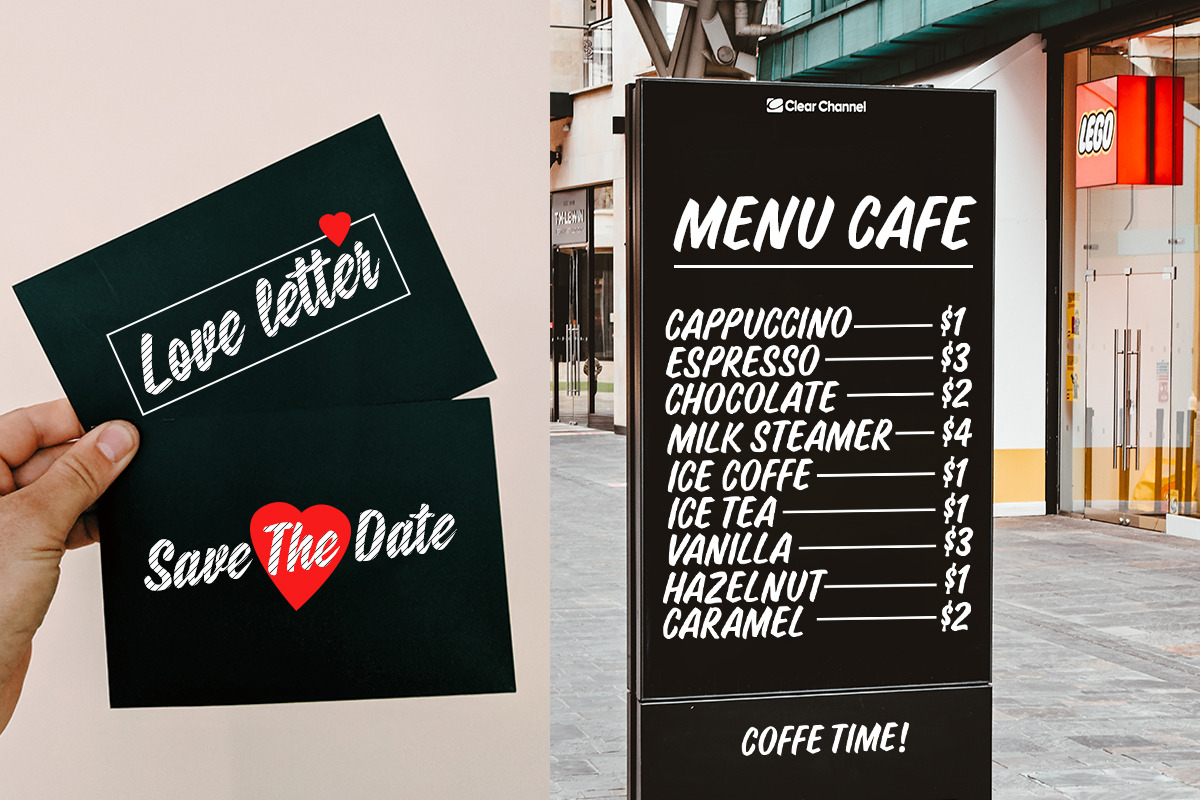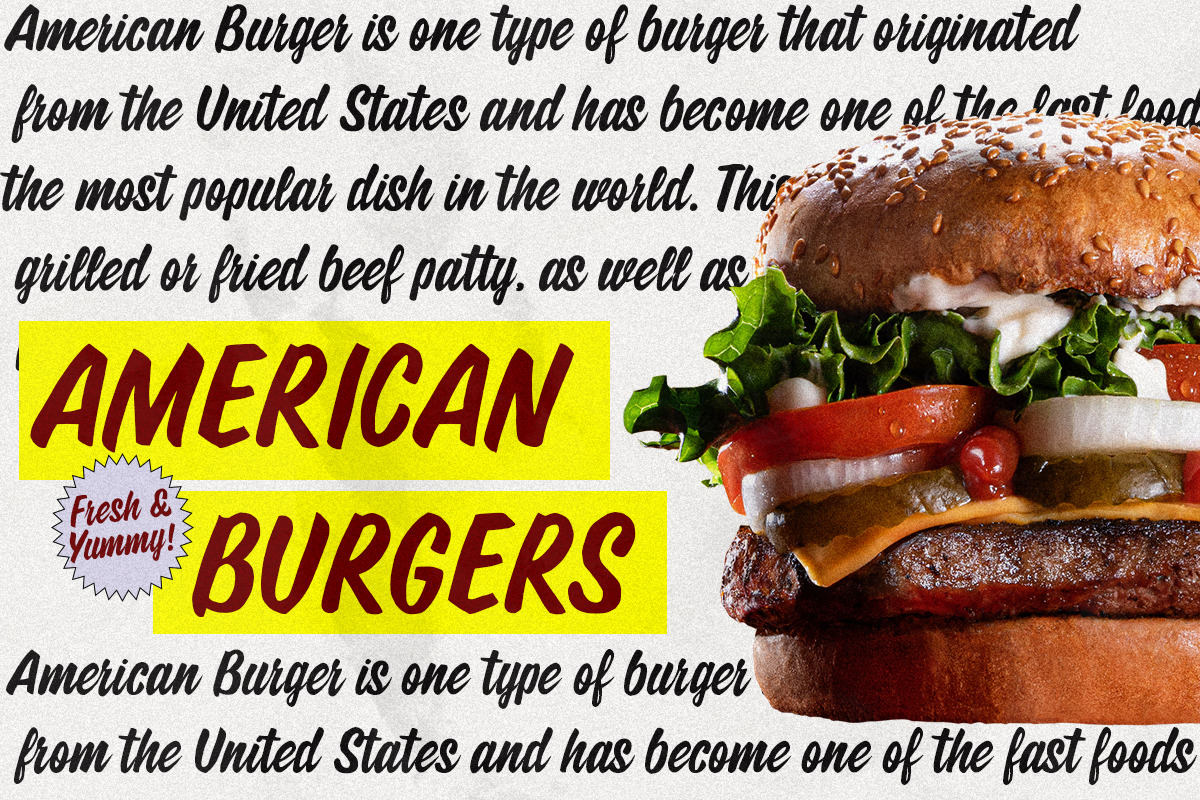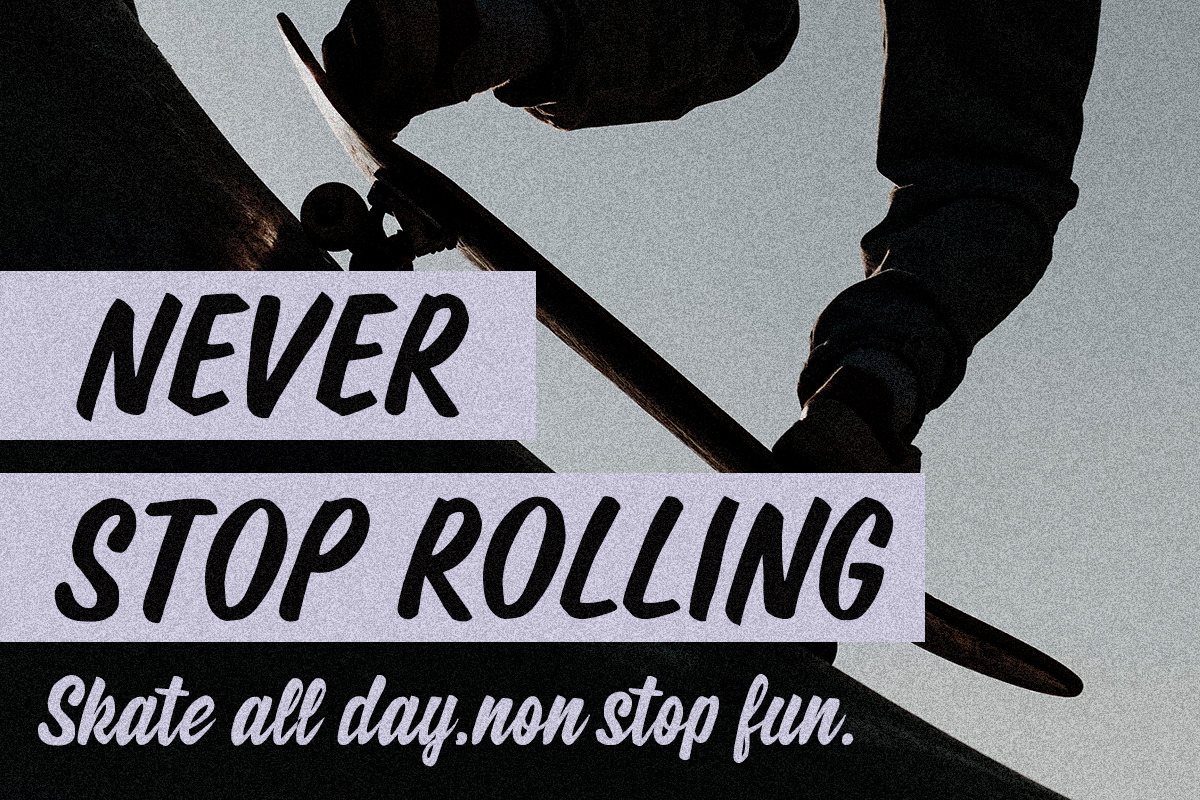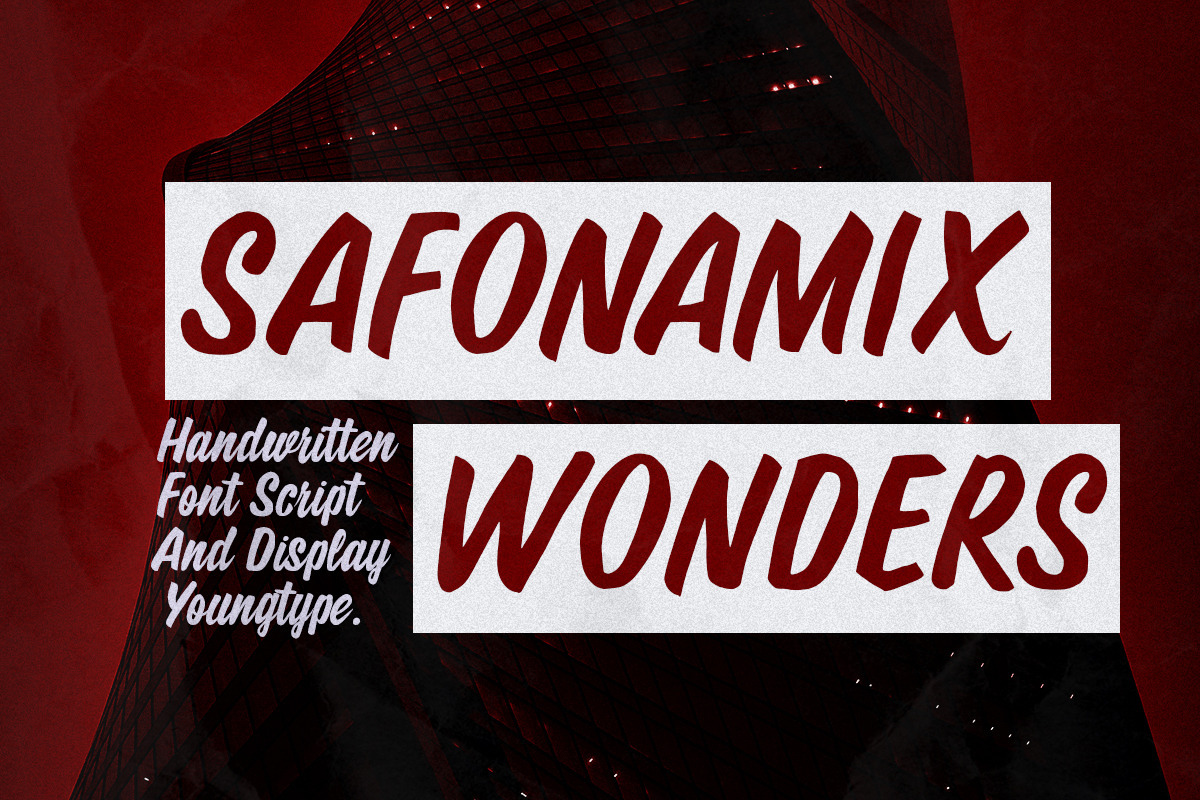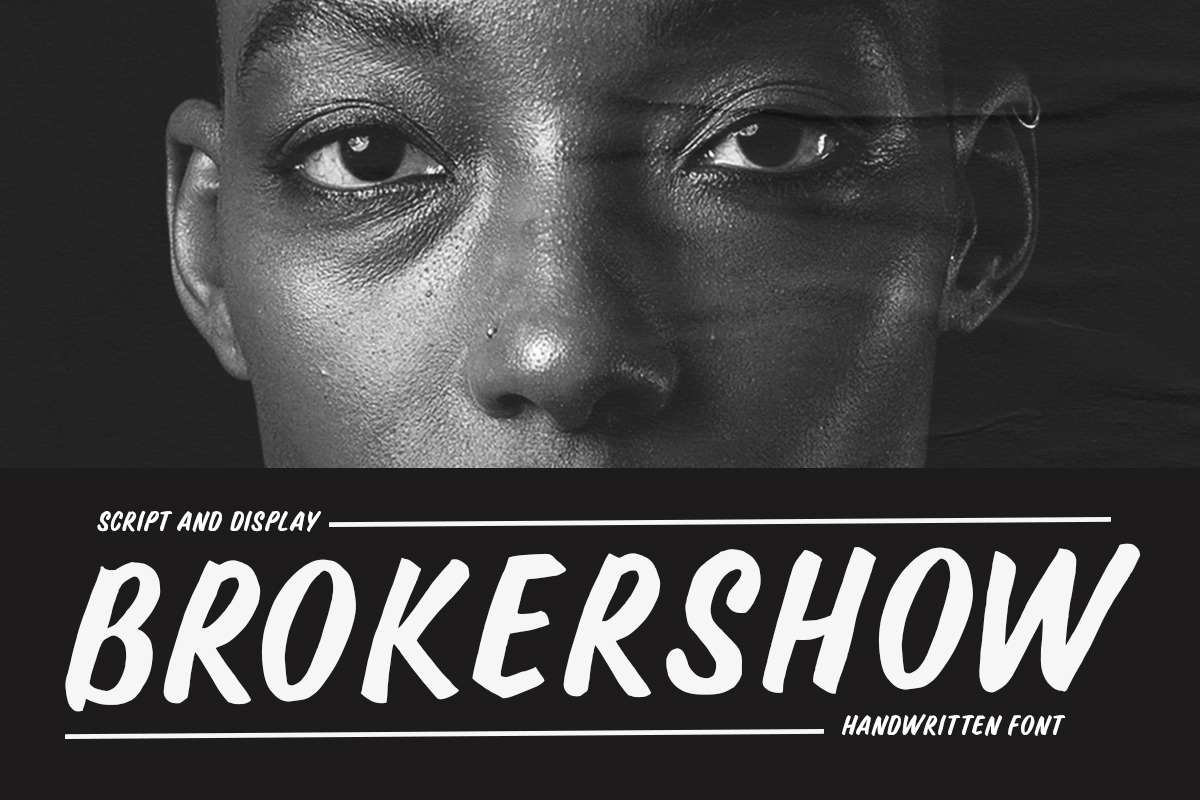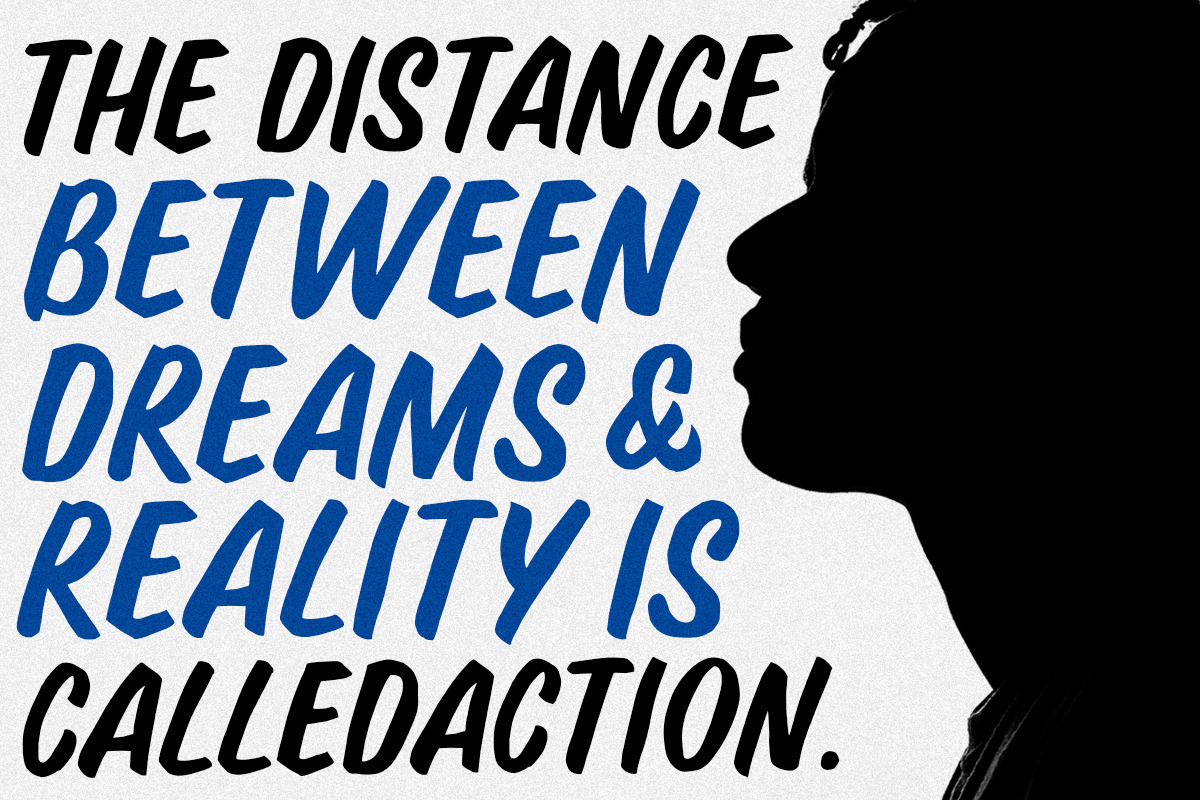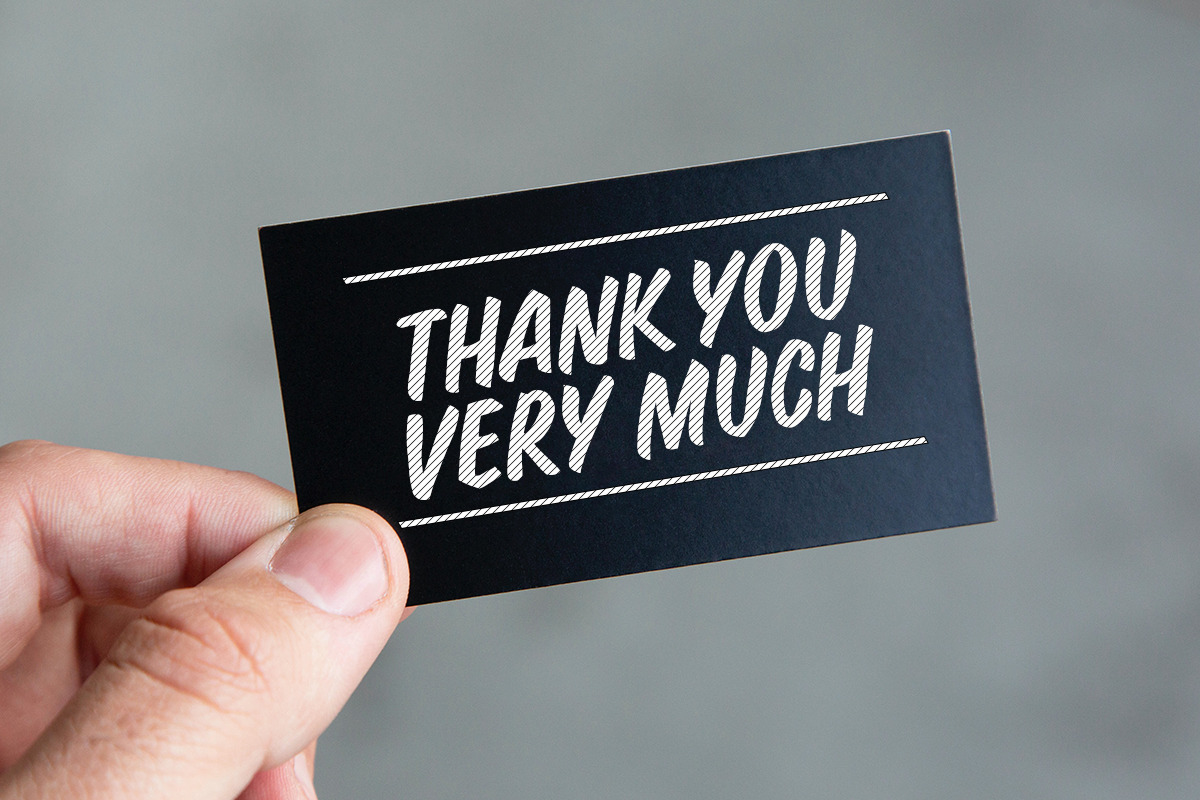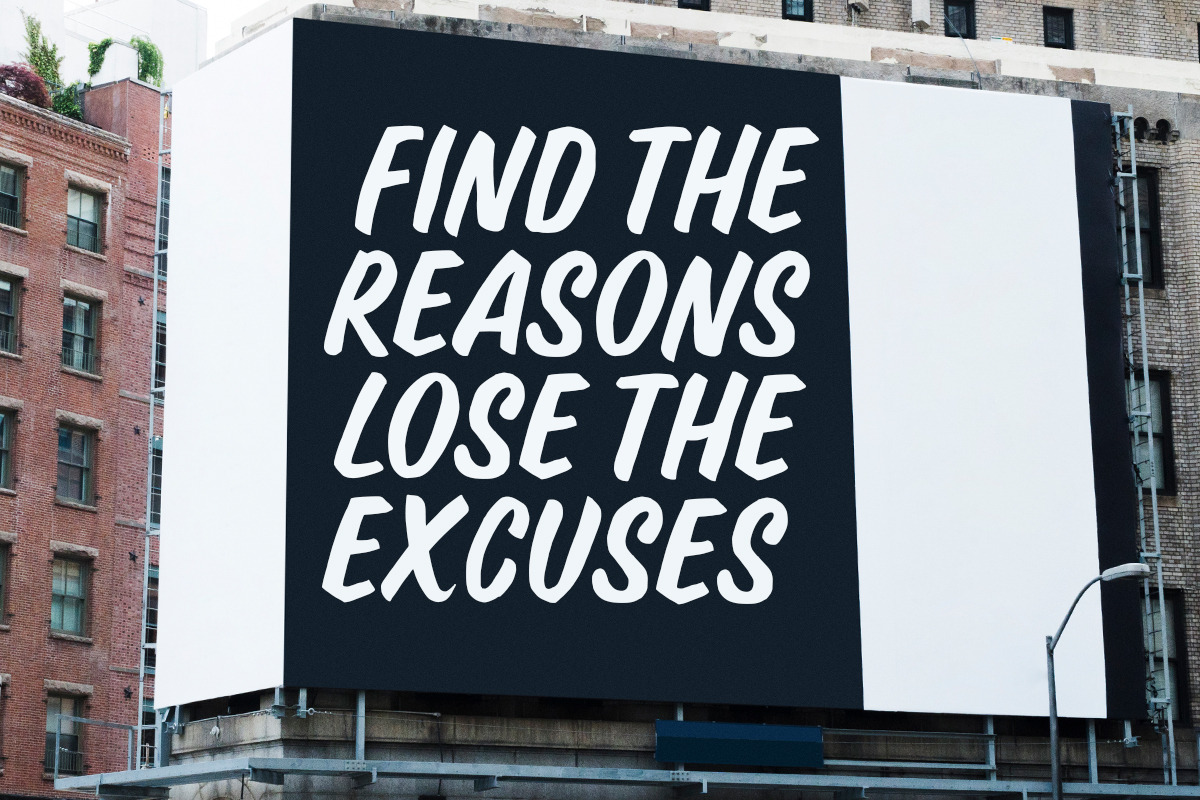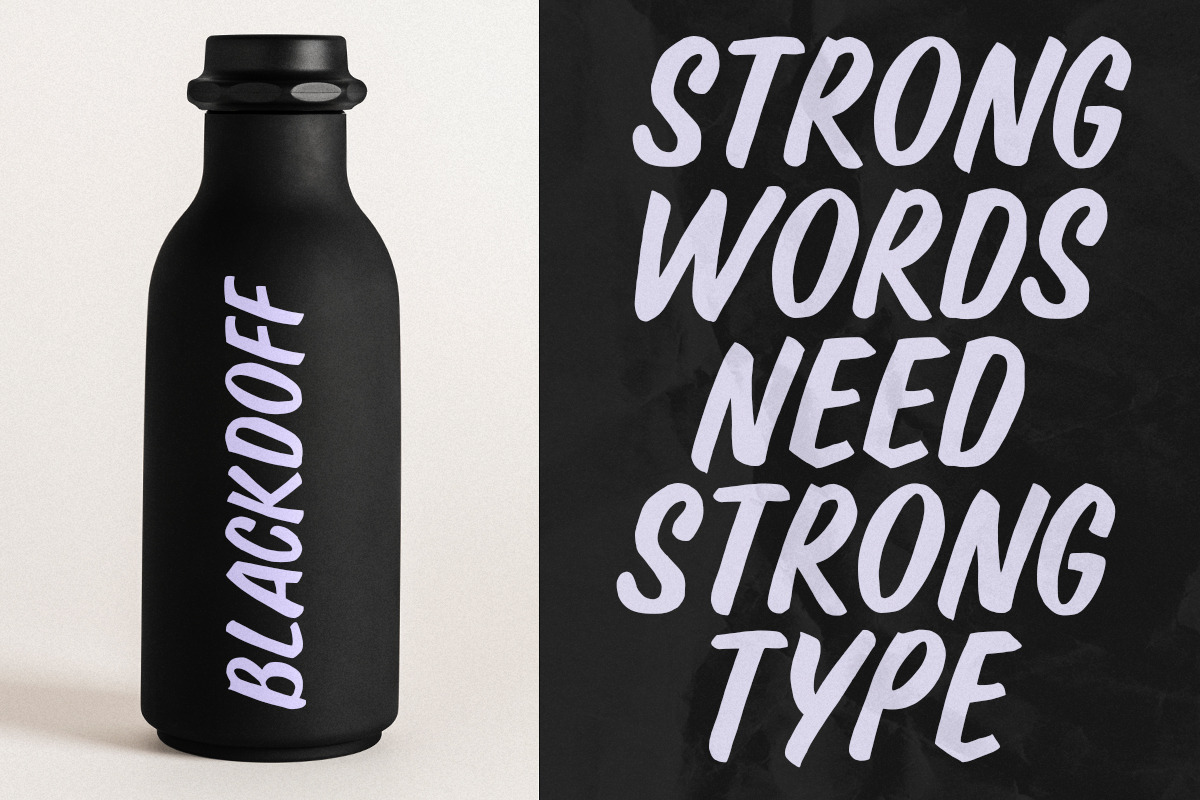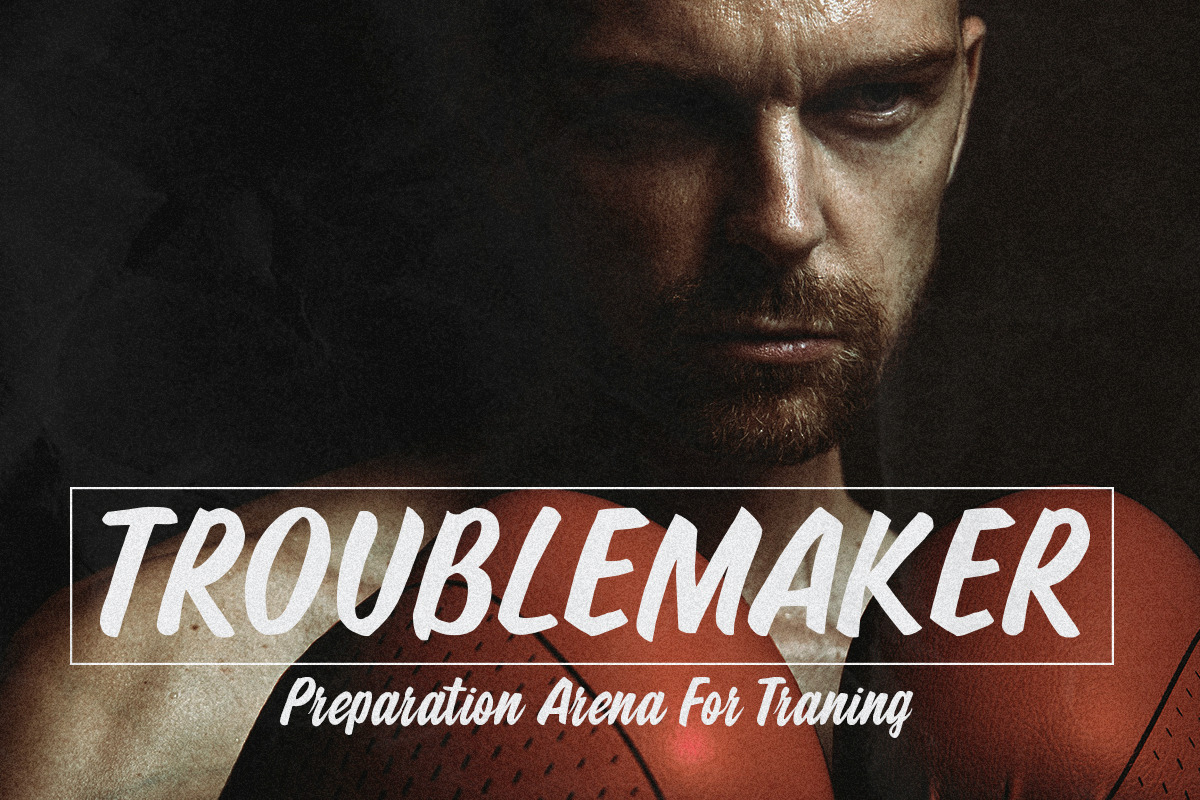
Safonamix Wonders - Font Duo
Safonamix Wonders & Safonamix Wonders Script is a hand brush font made with brushes and ink. This typeface is ideal for use in thick watercolor designs or handwriting styles, such as blog titles, posters, wedding elements, t-shirts, clothing, book covers, business cards, greeting cards, branding, merchandise etc.